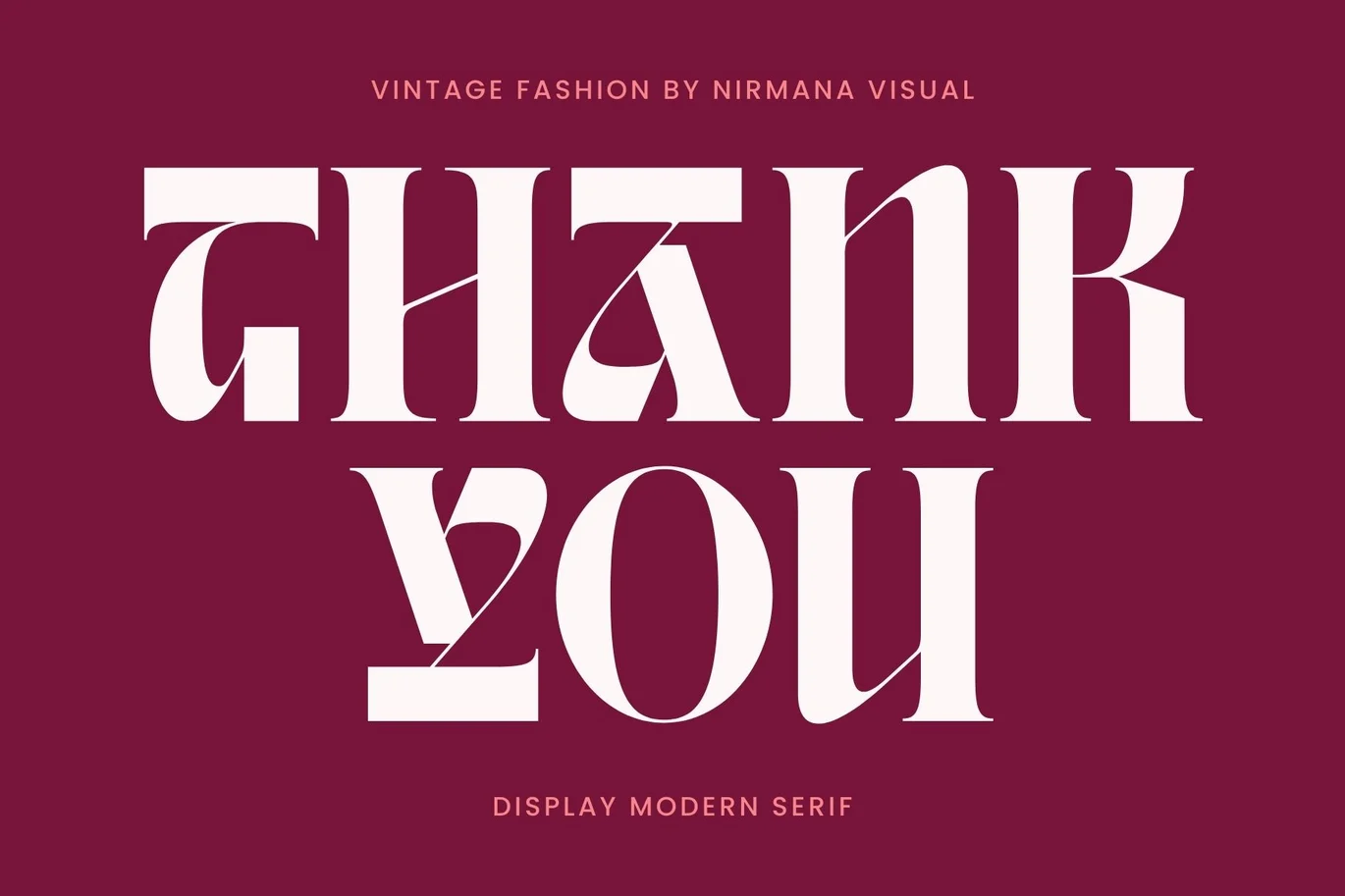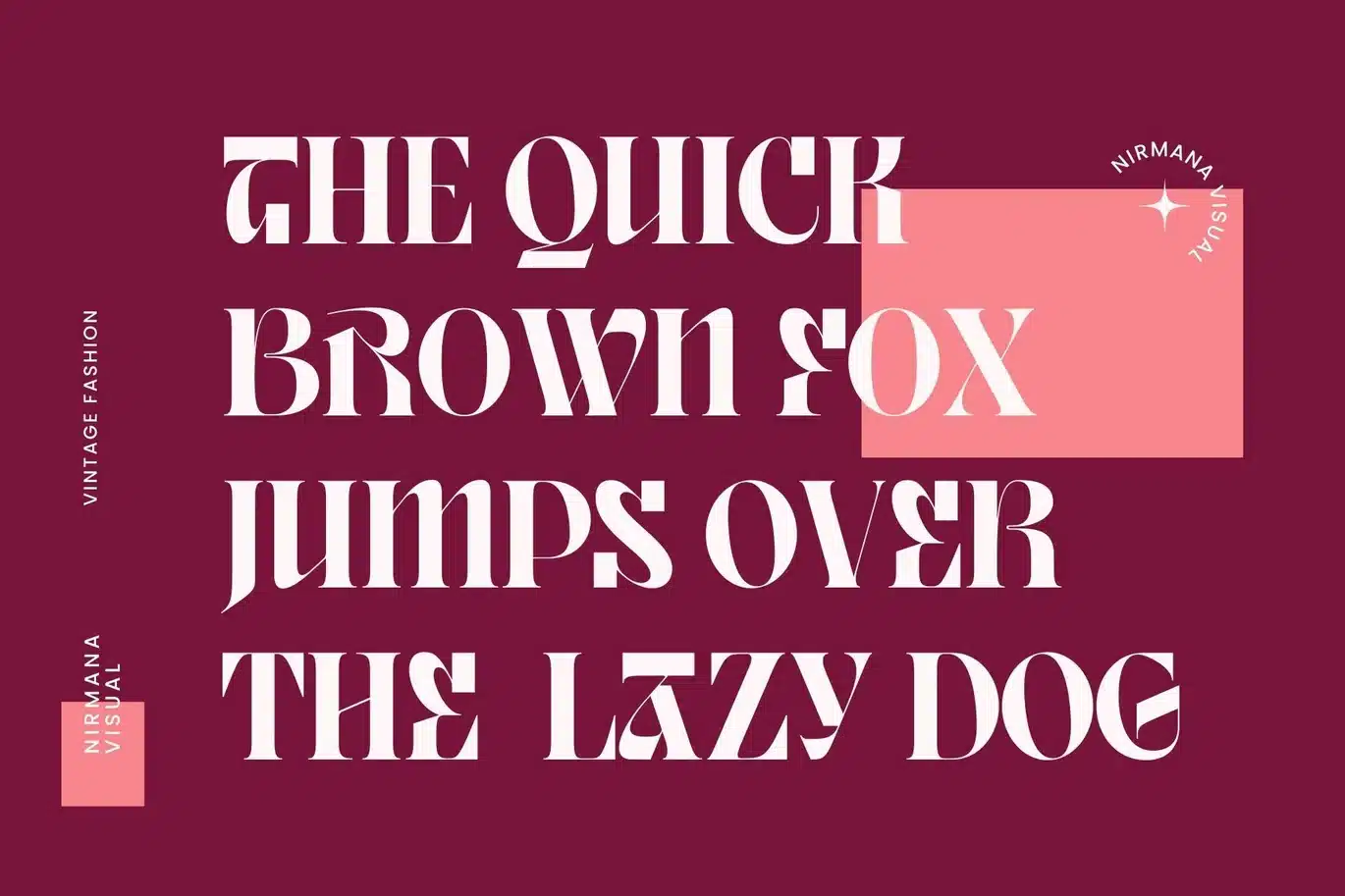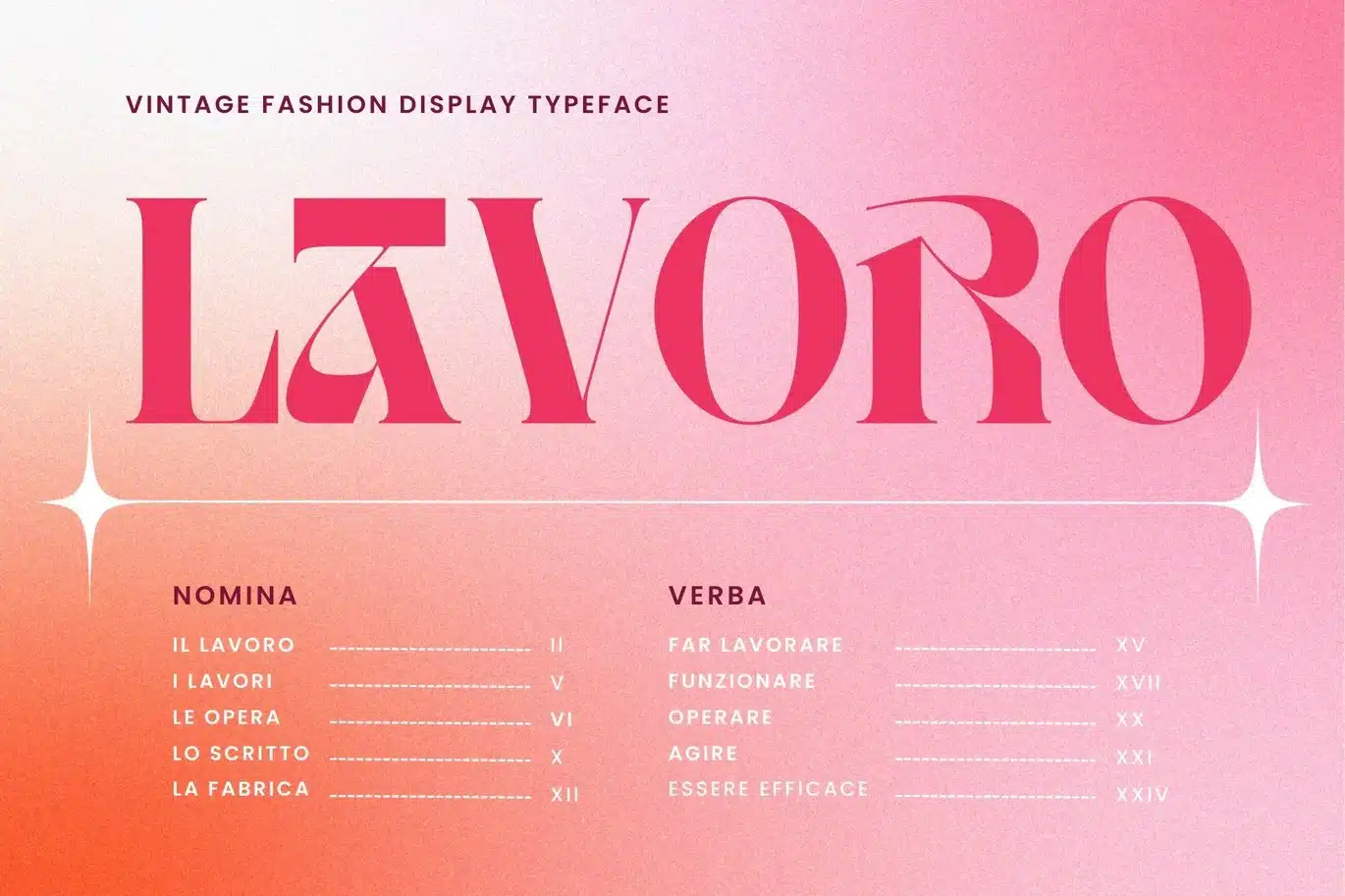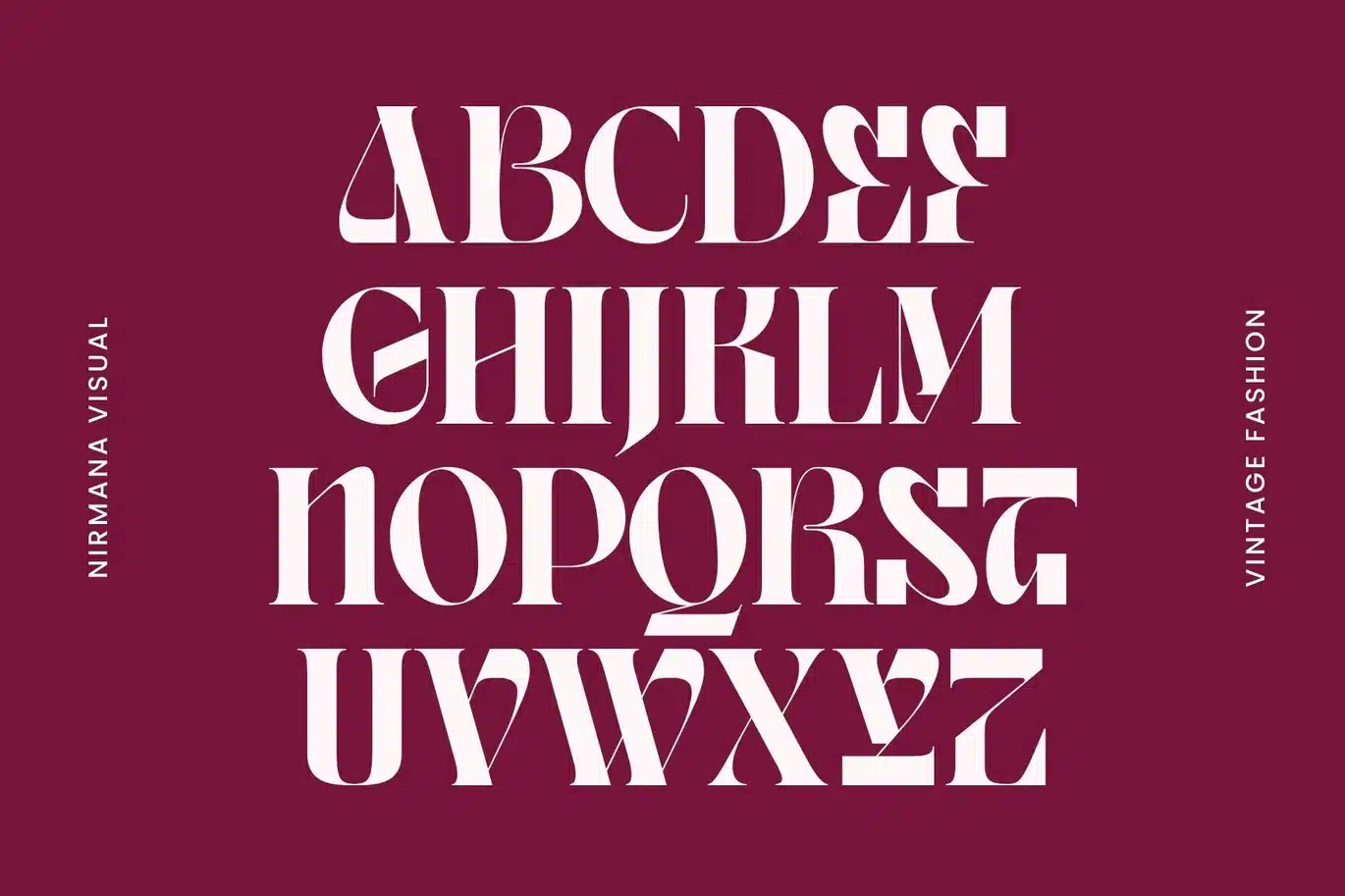
Vintage Fashion Inspired by Renaissance Design Era.
Vintage Fashion offers beautiful typographic harmony for a diversity of design projects, including logos & branding, social media posts, advertisements & product designs.